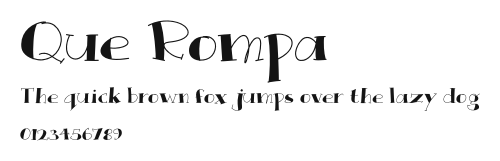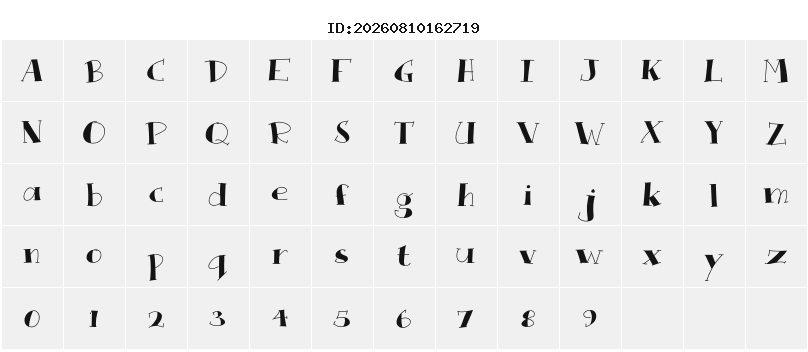
• Font Name: Que Rompa
• Designer: Lee Batchelor
About Que Rompa.otf
Que Rompa.otf is a modern, elegant sans-serif font designed for ultimate readability and visual harmony. Perfect for branding, headlines, web design, and print materials.